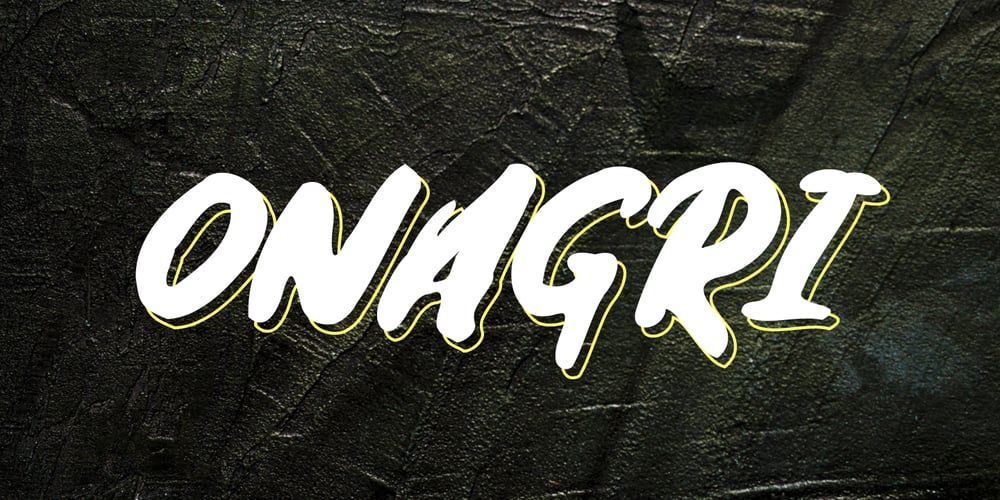
Onagri Font Family was designed by Ali Hamidi and published by Ali Hamidi. Onagri contains 1 styles and family package options. Onagri is a handwritten font with a personal touch so as to give an authentic handwritten impression. This font is expected to be suitable for all display needs of posters, flyers, logos, branding projects, titles, quotes, product packaging and all writing that requires stylish text for any background image.